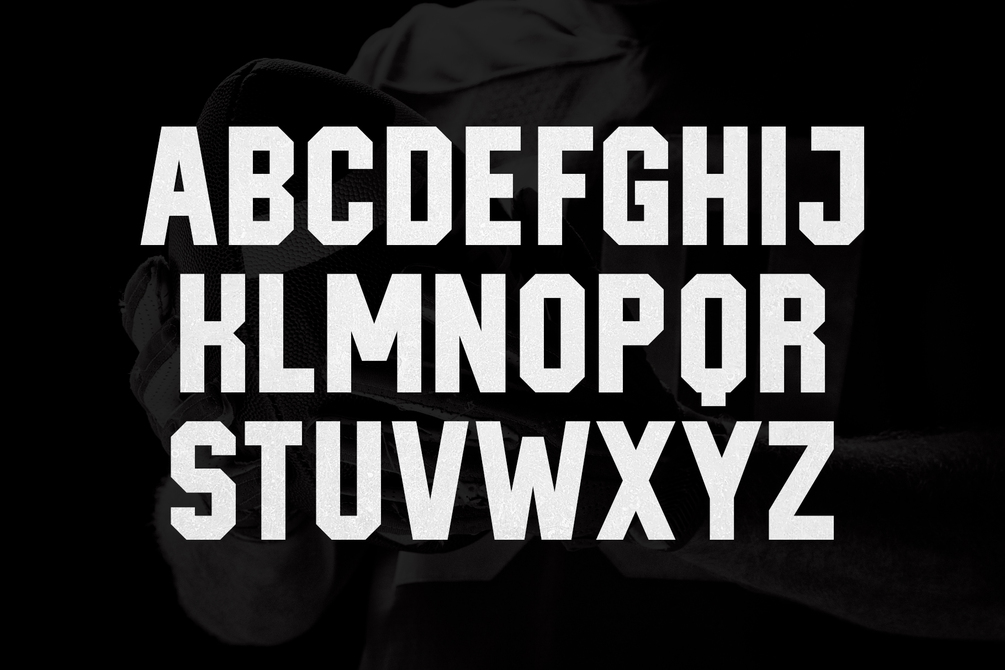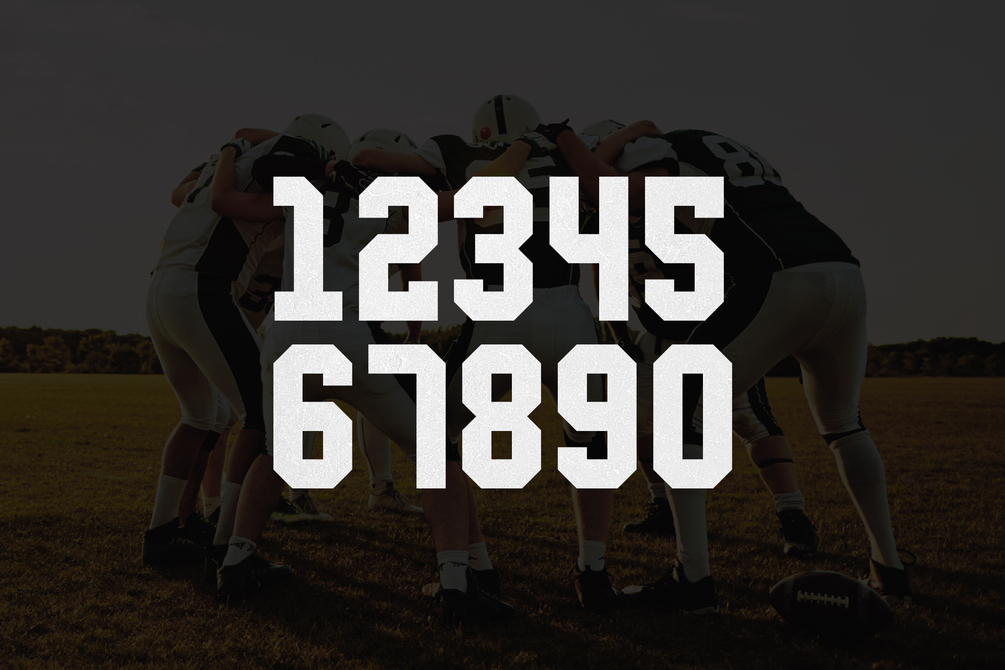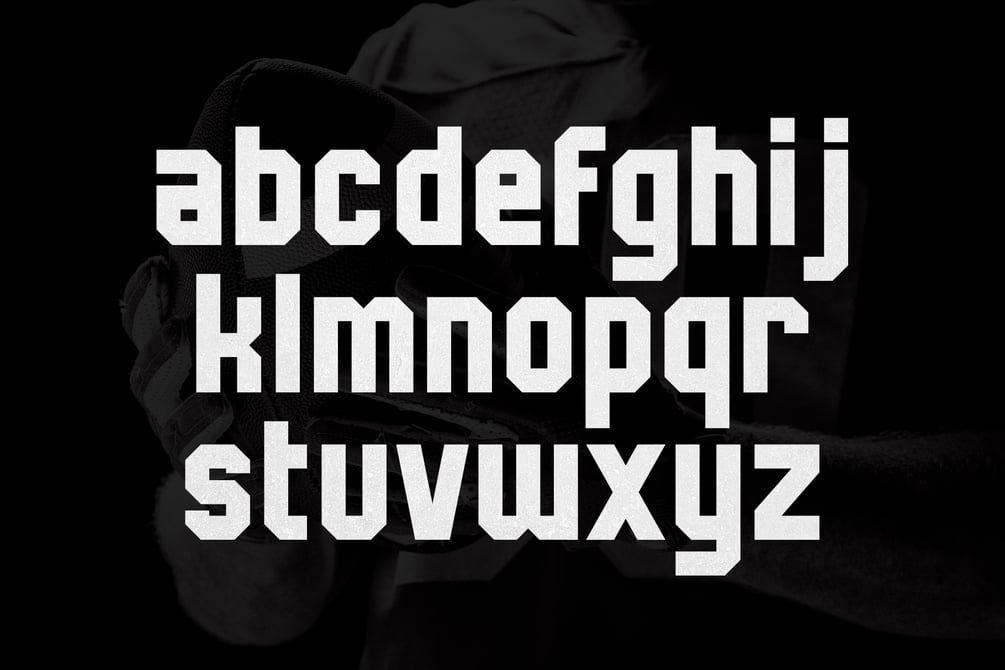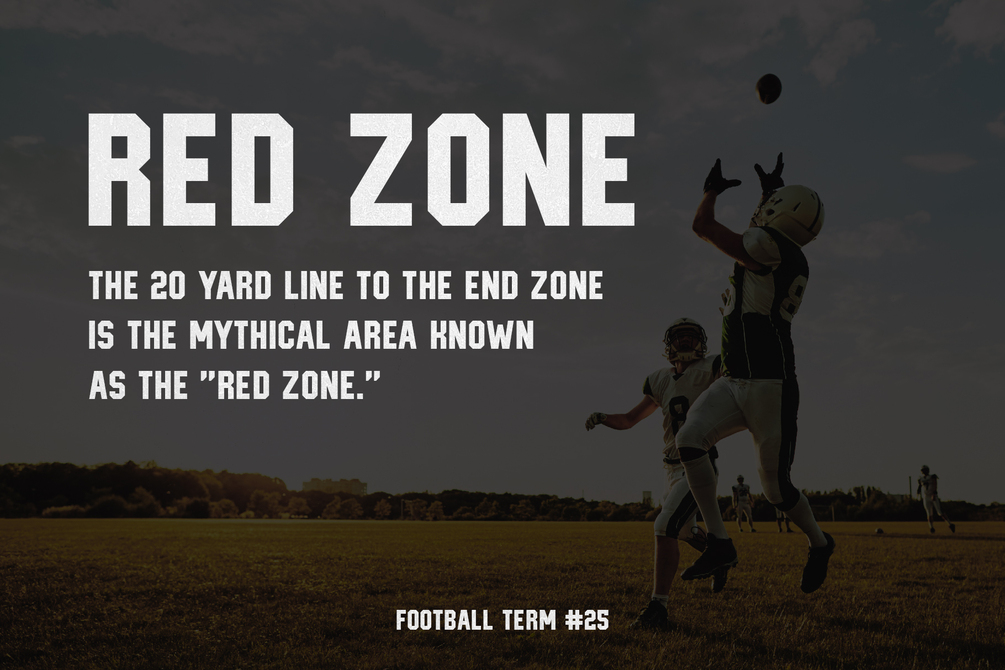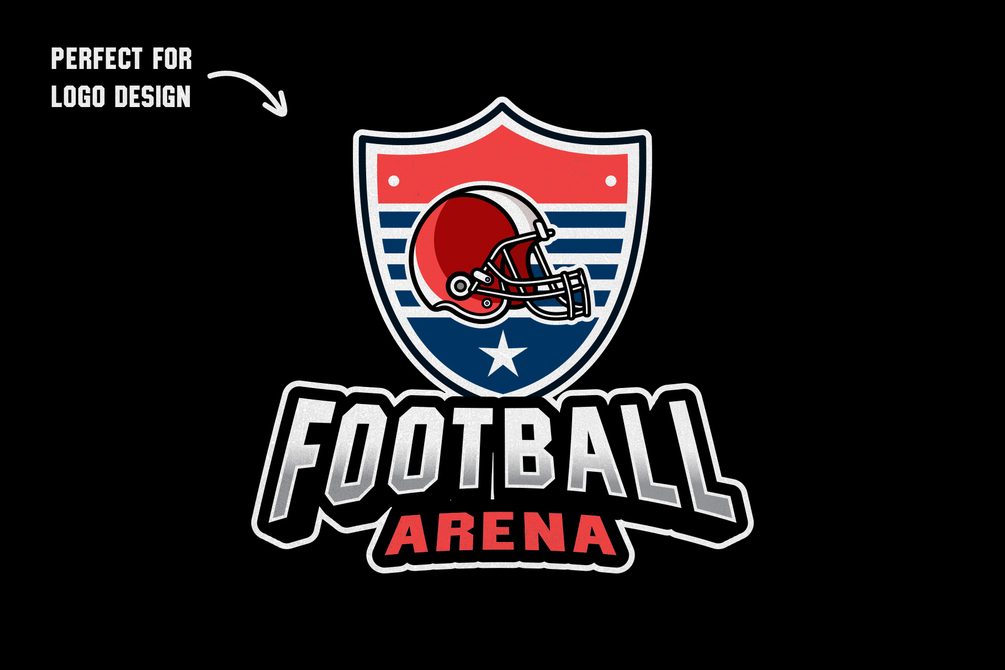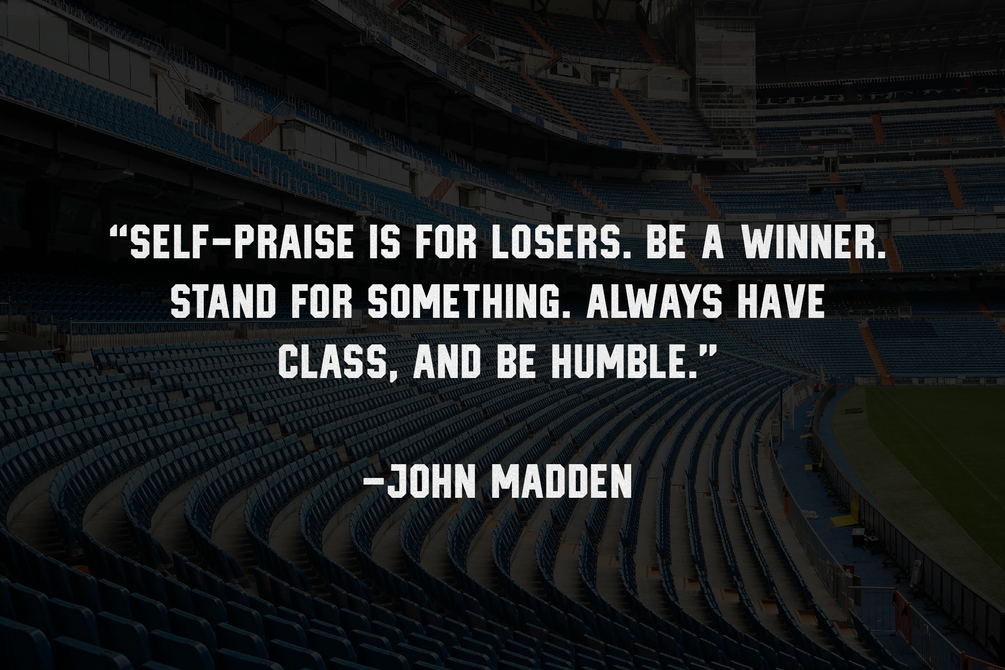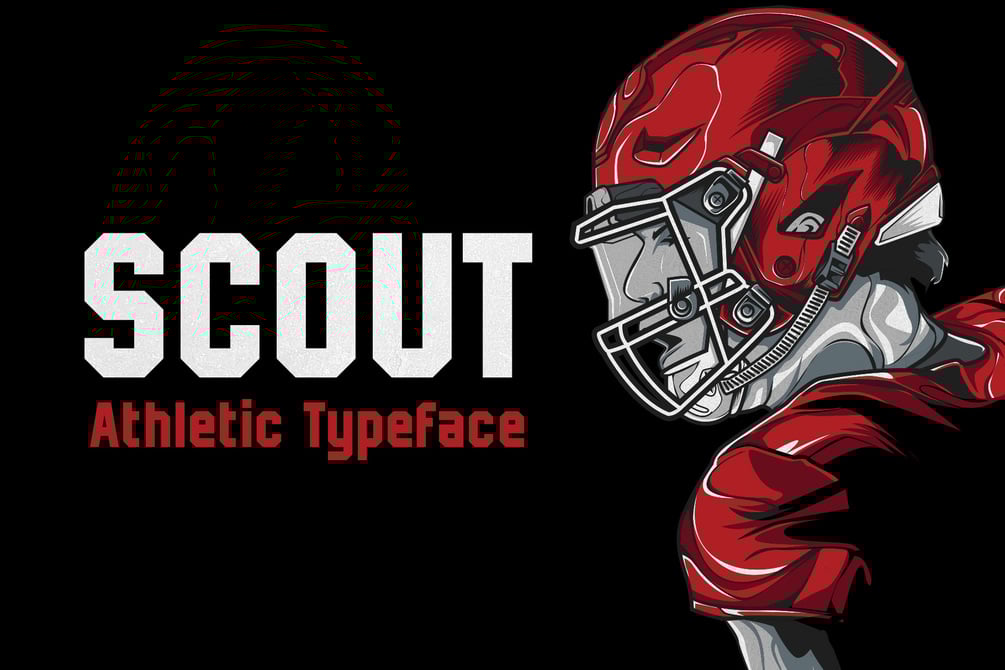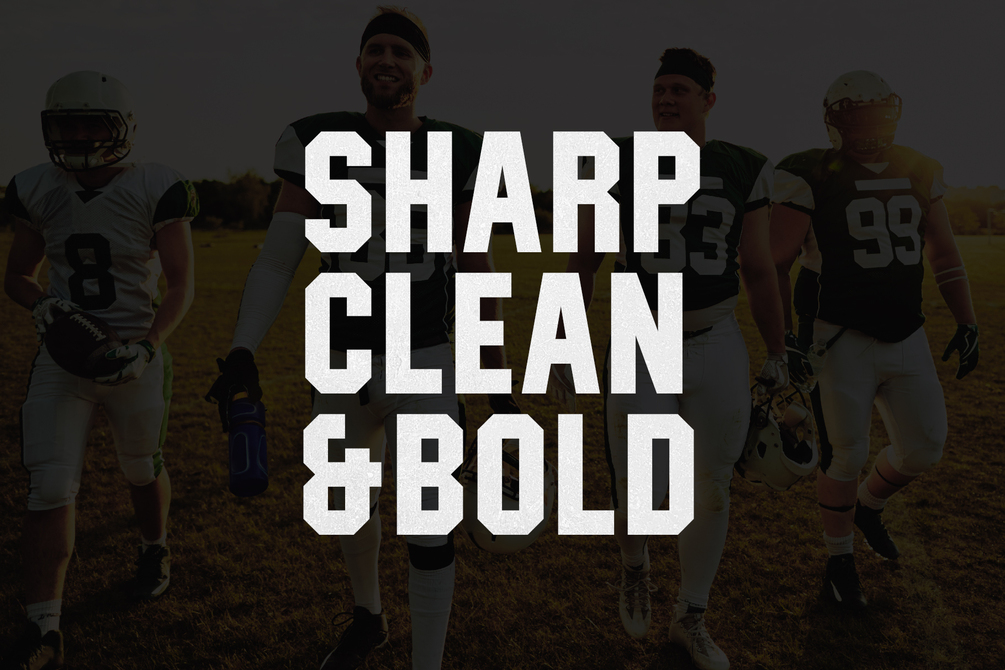
Scout - Athletic Typeface
Scout is a sharp, clean, and bold athletic font. It is a very versatile display typeface perfect for sports branding, emblems, jerseys, posters, apparel design, magazine headlines, labels and so much more. Scout is fully-kerned and ready to be used right out the box.